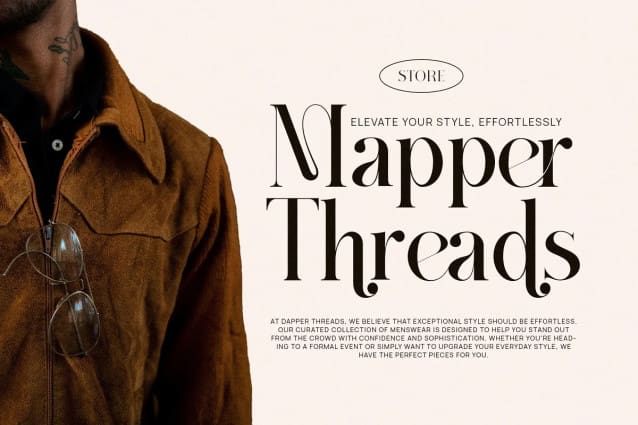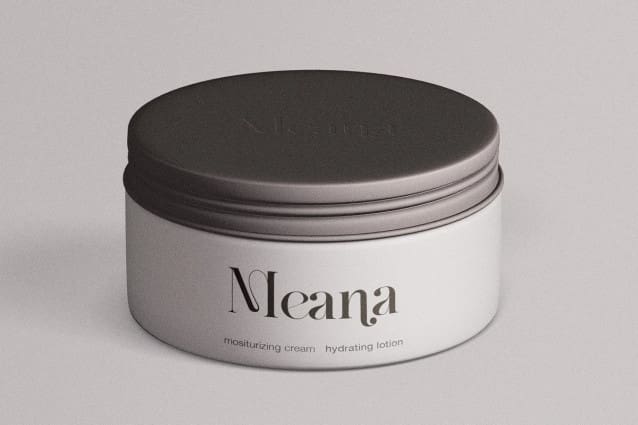
Bagier Font
Bagier Font – Modern Serif Typeface inspired by the famous minimalist logo perfect for the purposes of designing templates, brochures, videos, advertising branding, logos, invitation, layout design, elegant crafting, beauty design and other